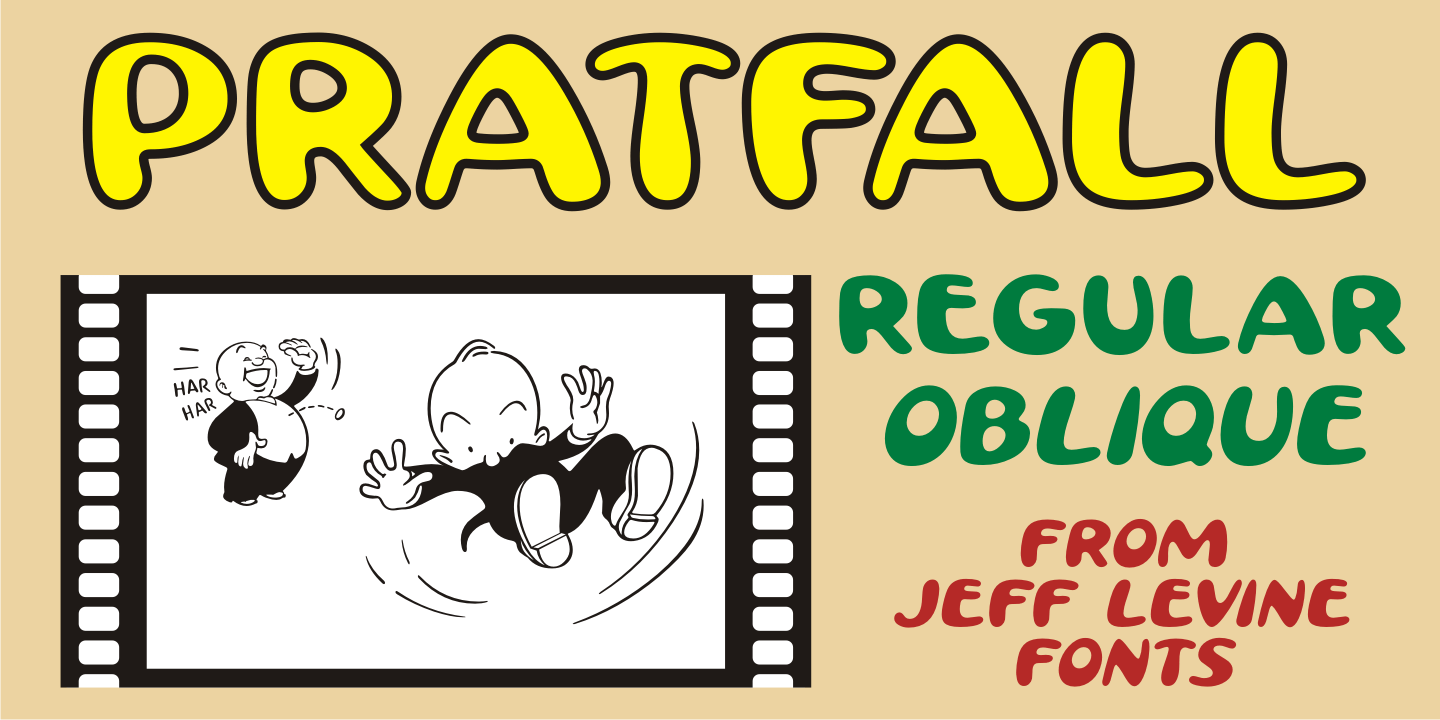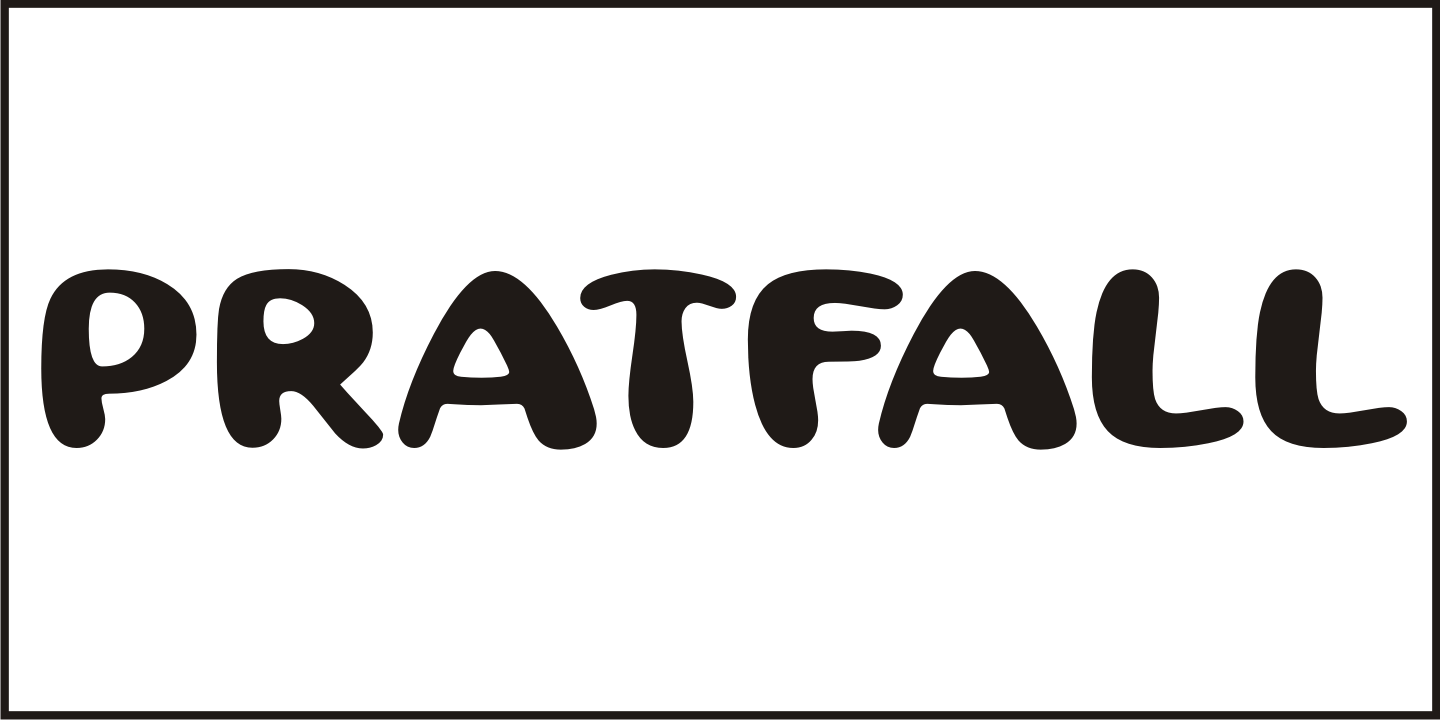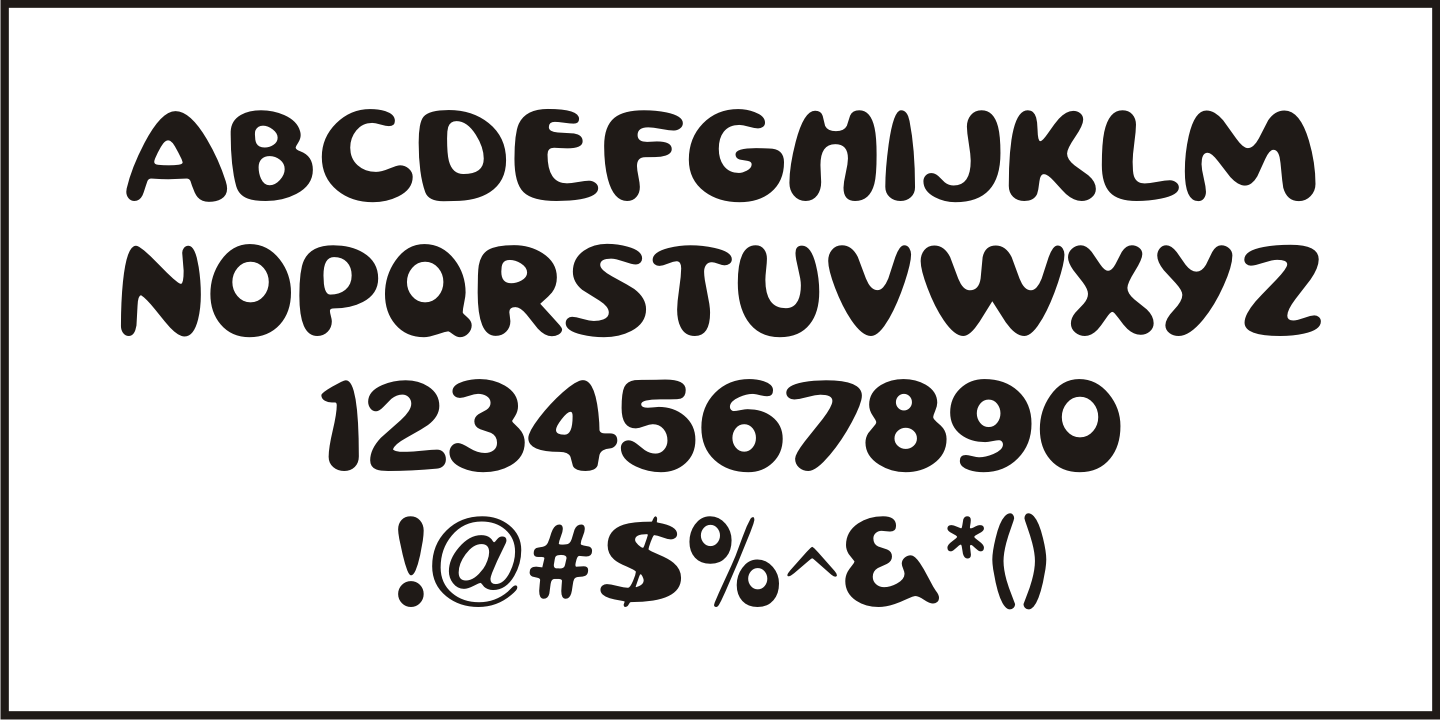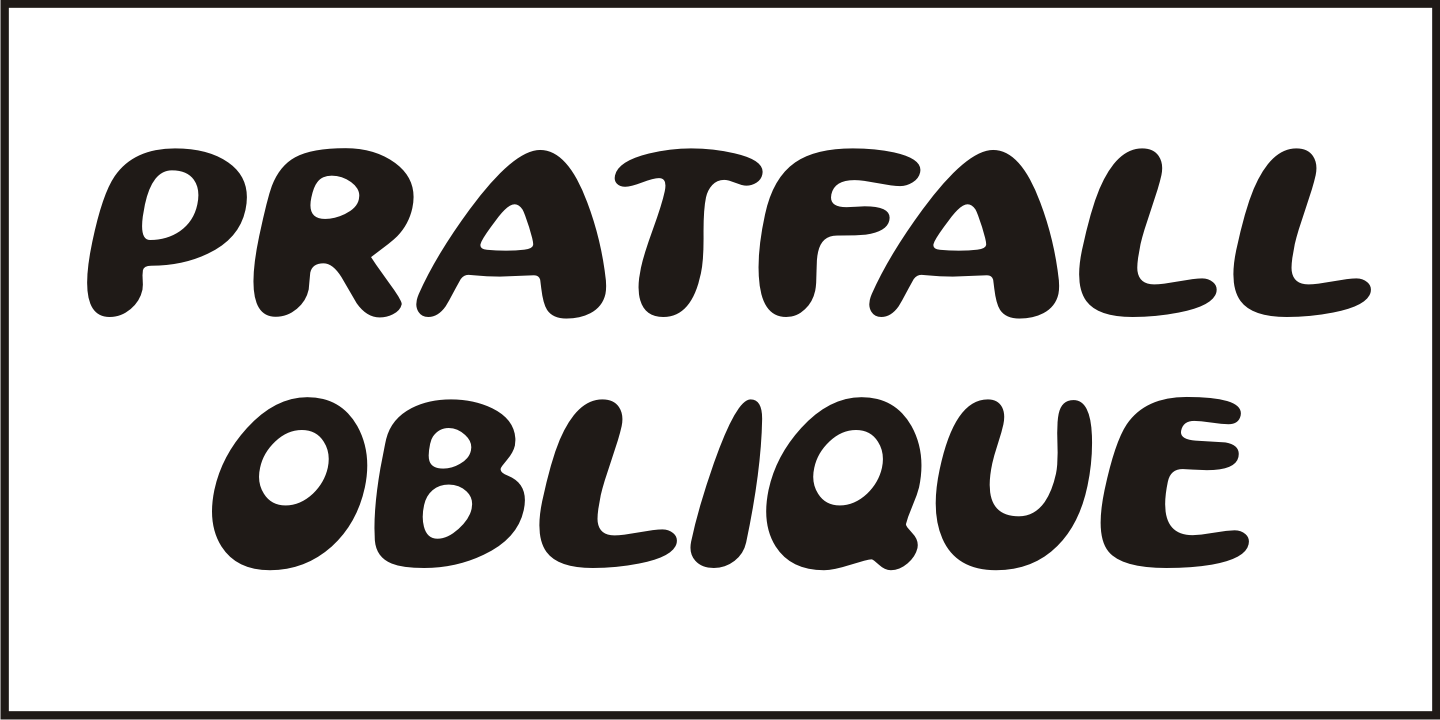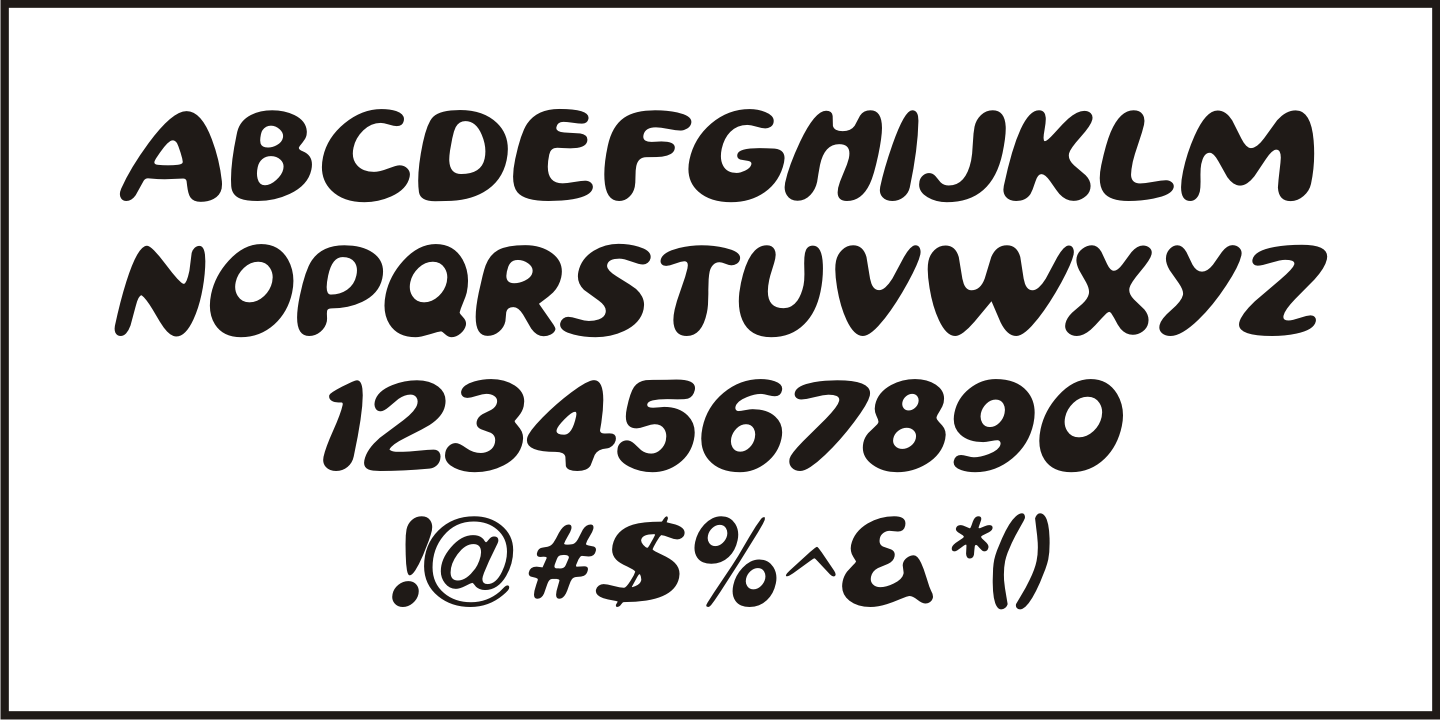
Pratfall
For 138 years, the Milton Bradley Company (of Springfield, Massachusetts) has been the leading producer of board games, toys and educational/instructional materials. The company was acquired by Hasbro in 1984. It was merged with the also-acquired Parker Brothers in 1991 and became Hasbro Games until both brand ID's were dropped in 2009.
'The Moving Picture Game' was a 1920s-era board game created by Howard R. Garis (credited as 'the author of the Uncle Wiggily game') and capitalized on the still-new motion picture industry.
On top of the storage box is the game's name – hand lettered in a free-flowing Art Nouveau sans serif that more closely resembles the titles found within animated cartoons or in the 'bubble letters' a school child doodles on notebook paper.
Recreated as a digital typeface, Pratfall JNL (named after the slips, trips and falls taken by silent era film comedians) is available in both regular and oblique versions.